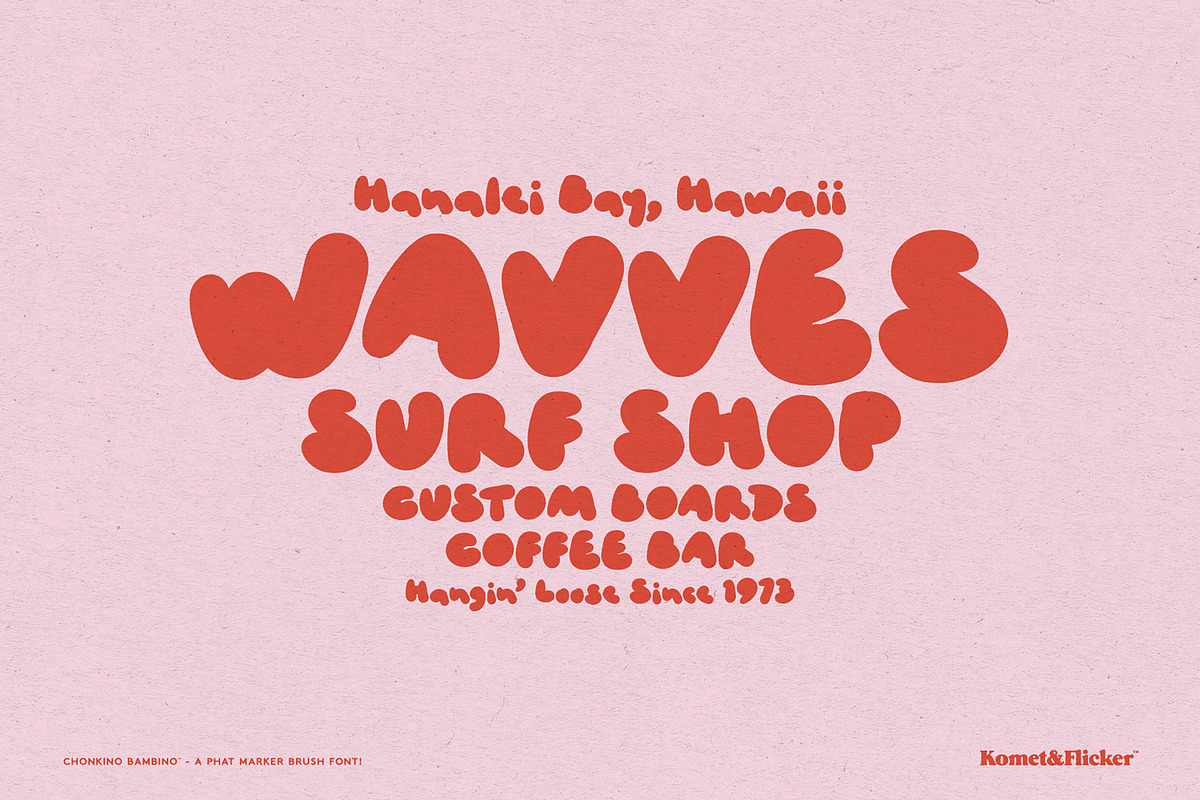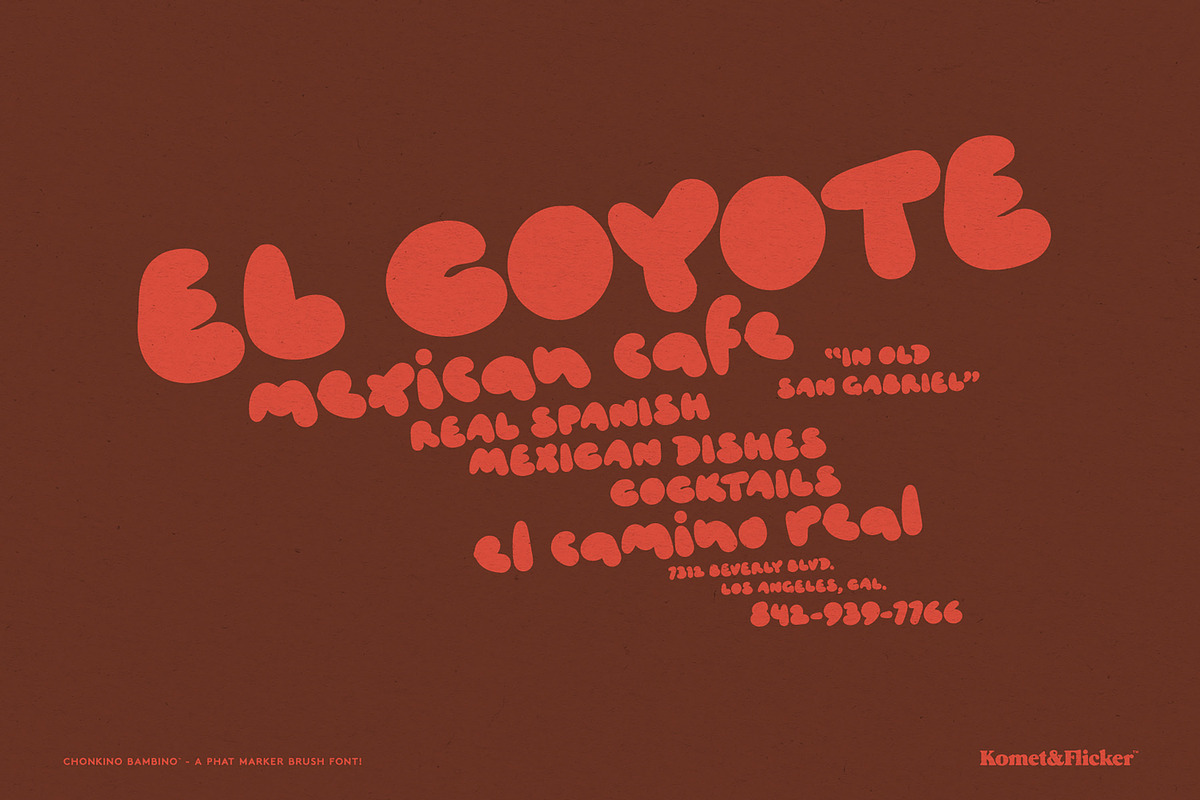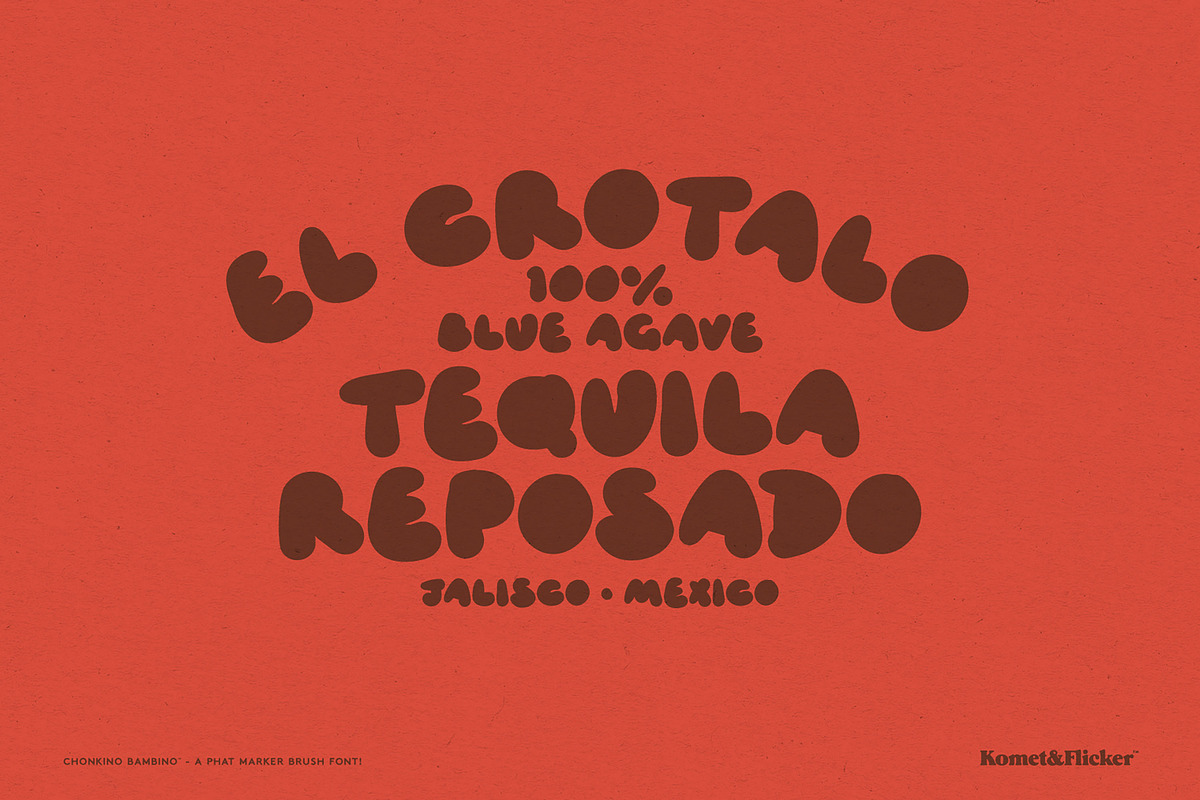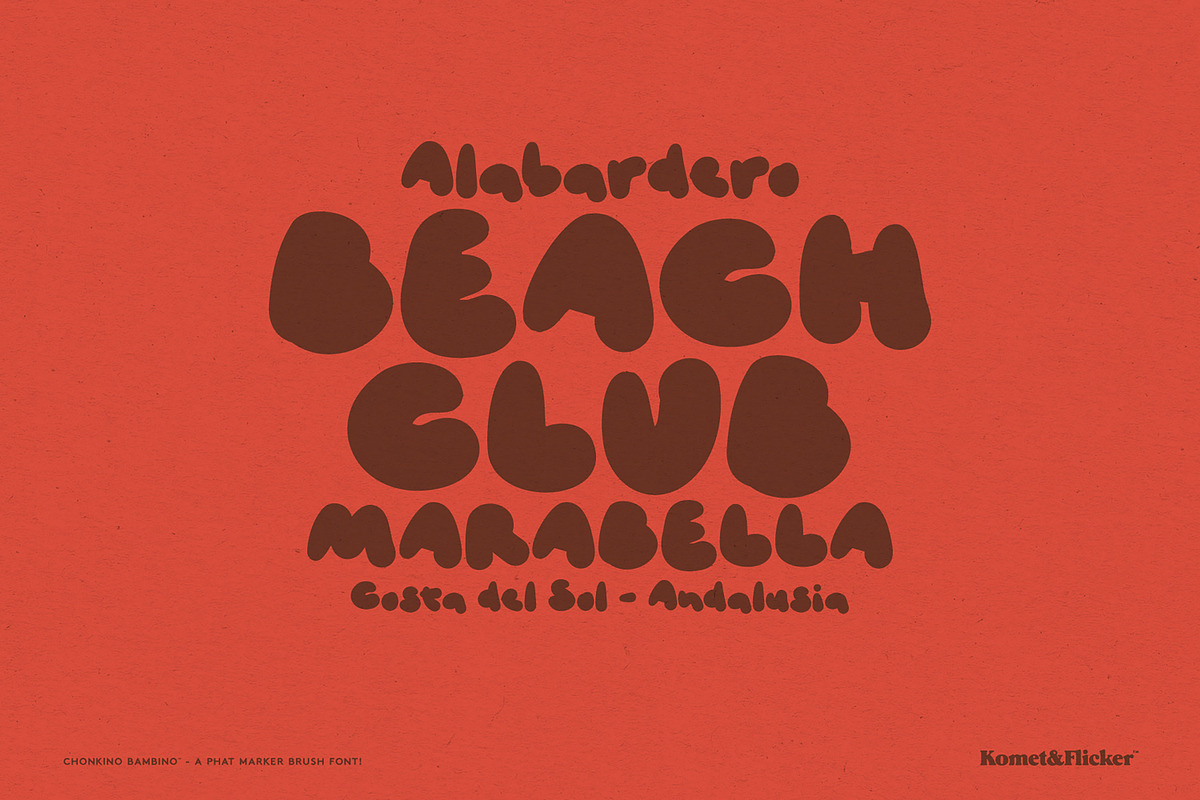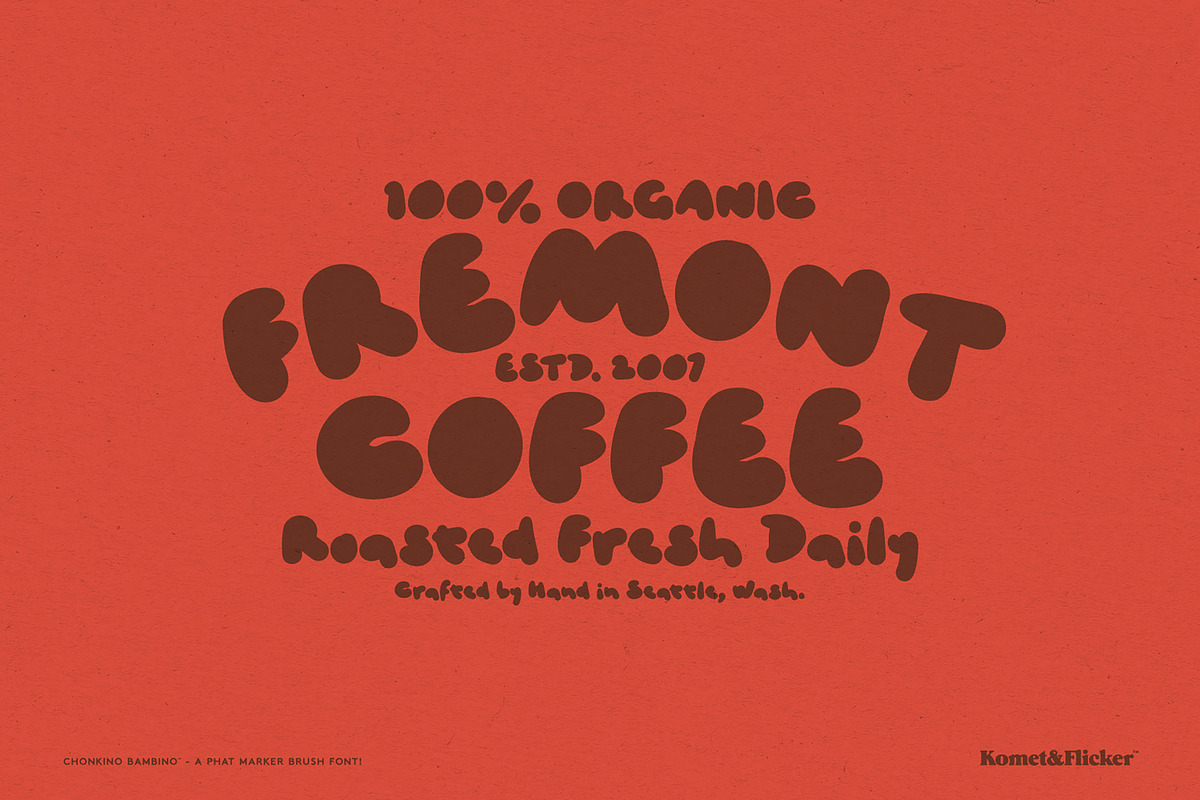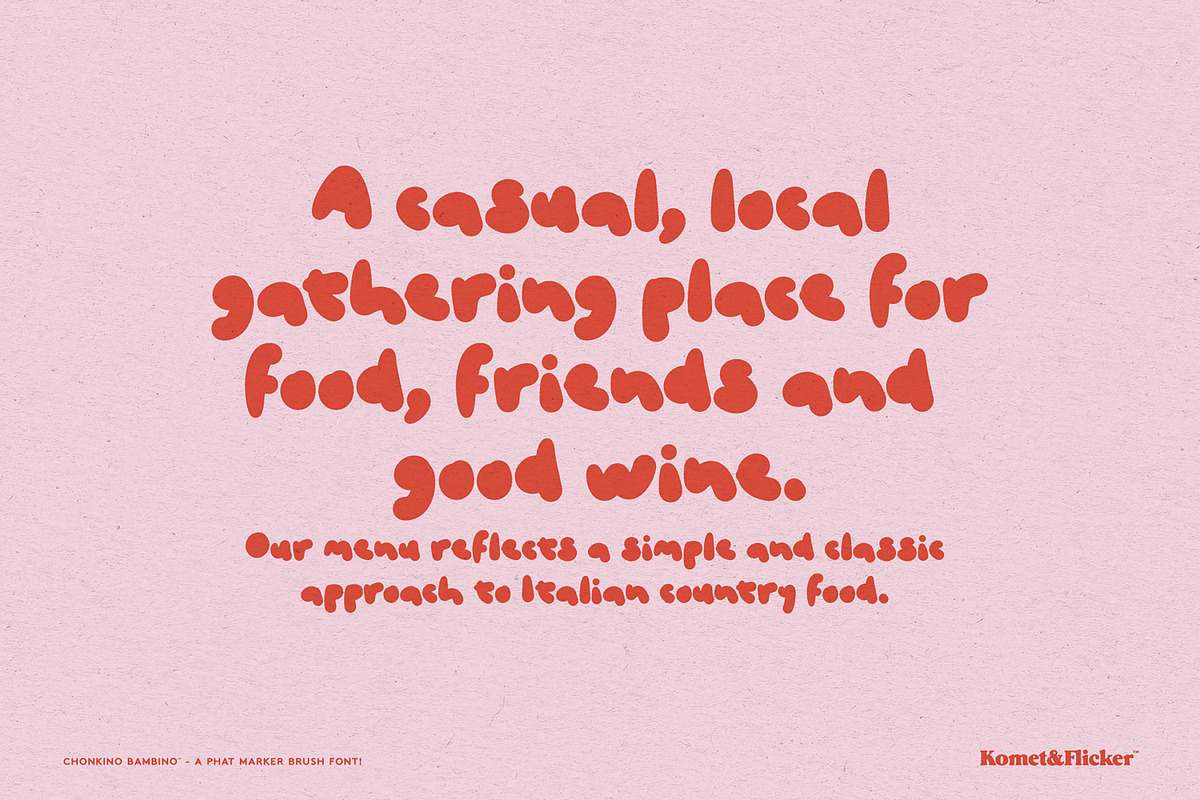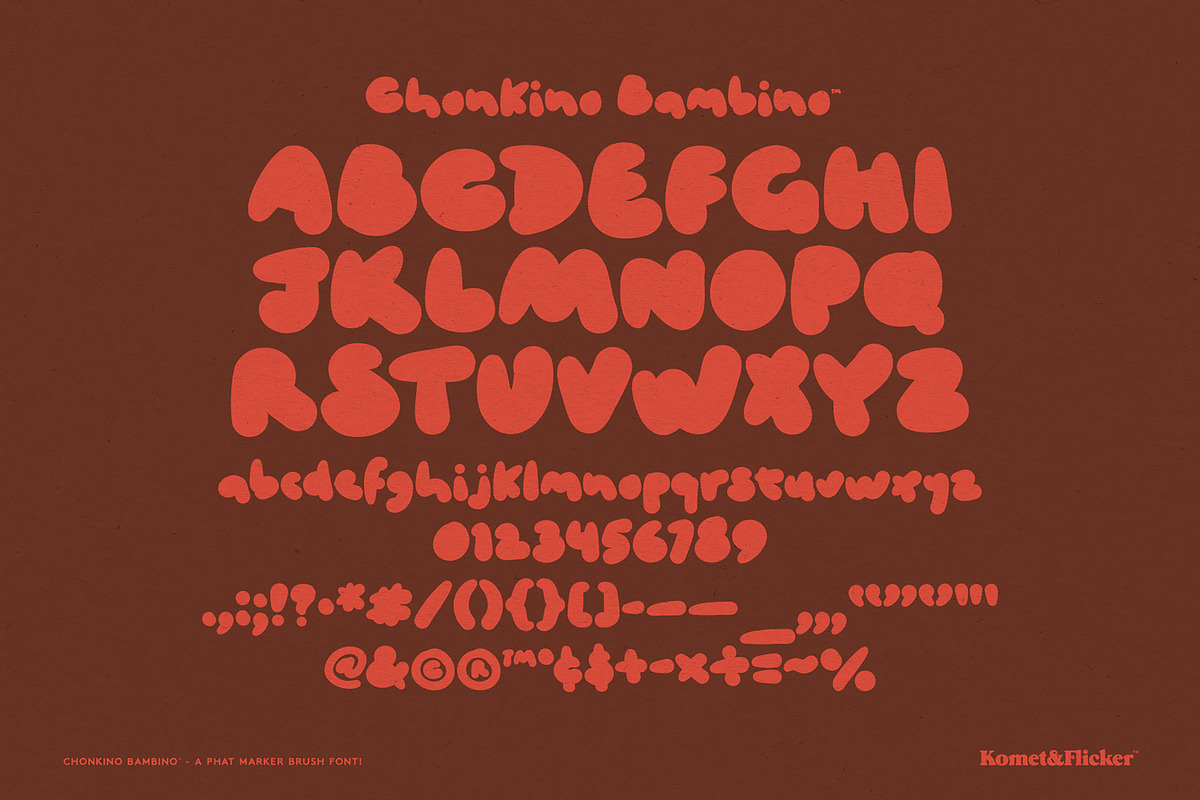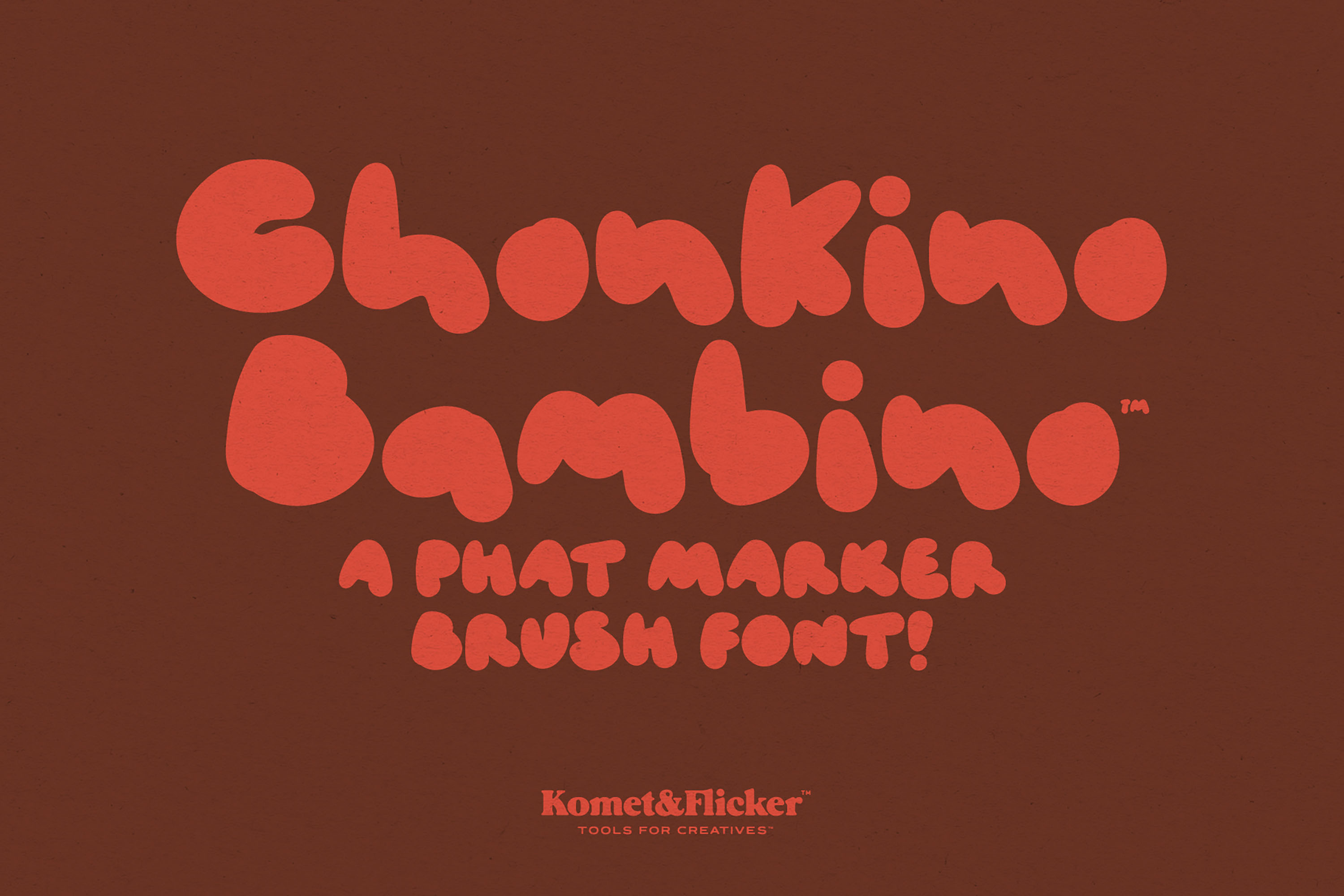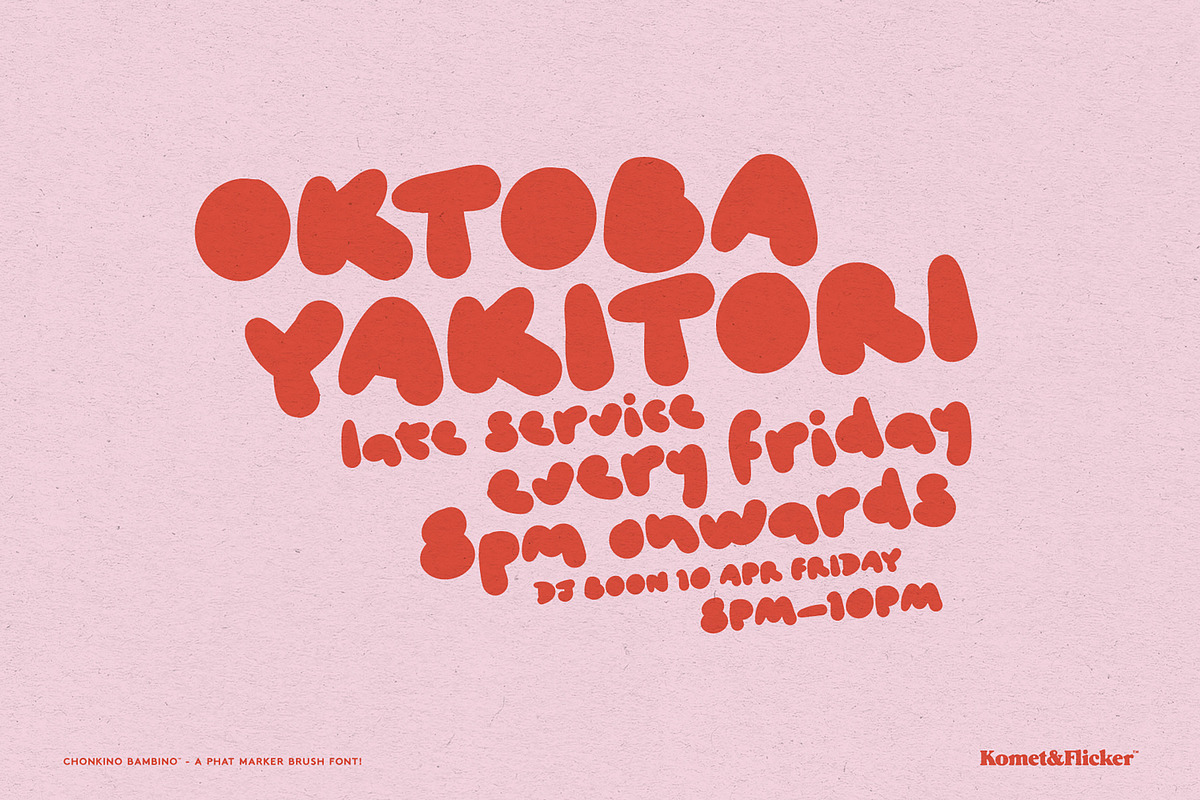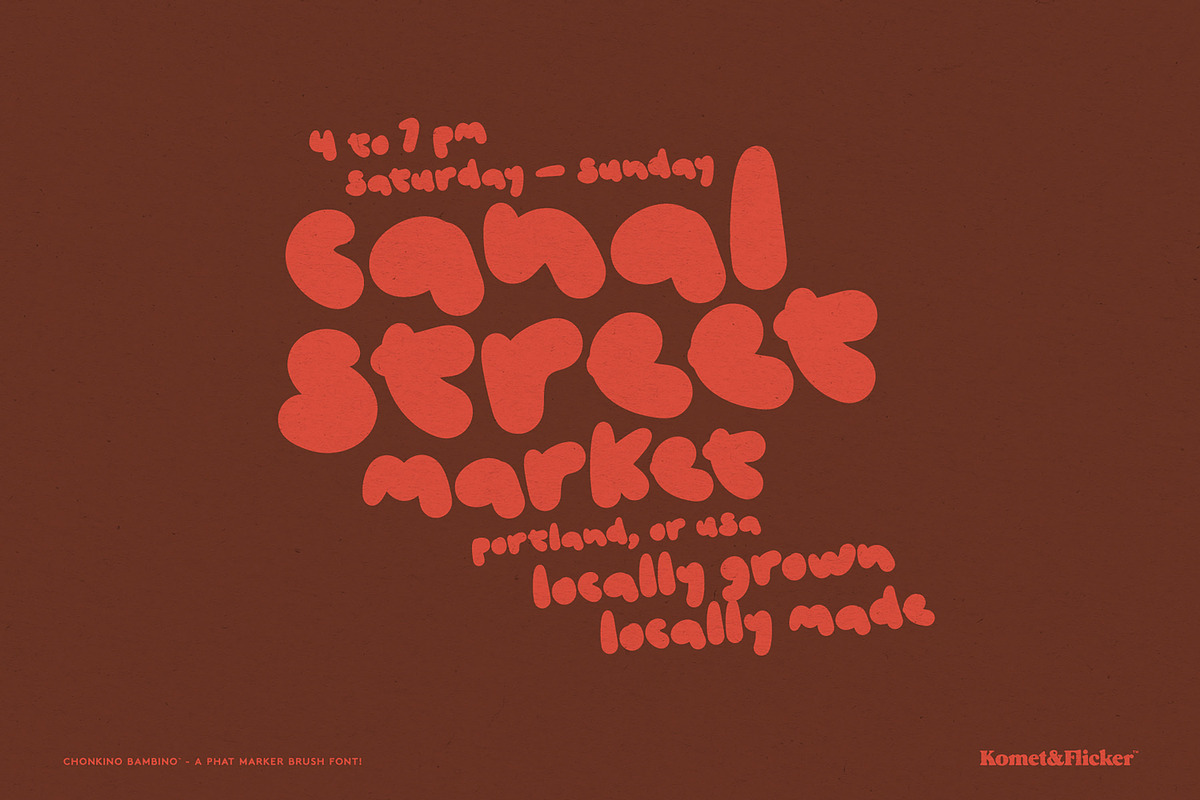
Chonkino Bambino - A Phat Brush Font
Chonkino Bambino is a hand-drawn marker brush font bursting with friendly personality. Its fun, soft, and blobby letterforms give every word a casual, playful energy just like your favorite doodle came to life. Perfect for children's books, packaging, branding, and anywhere that calls for a little extra charm and character.
Full A-Z basic latin upper and lowercase characters
Numbers, punctuation, and select symbols